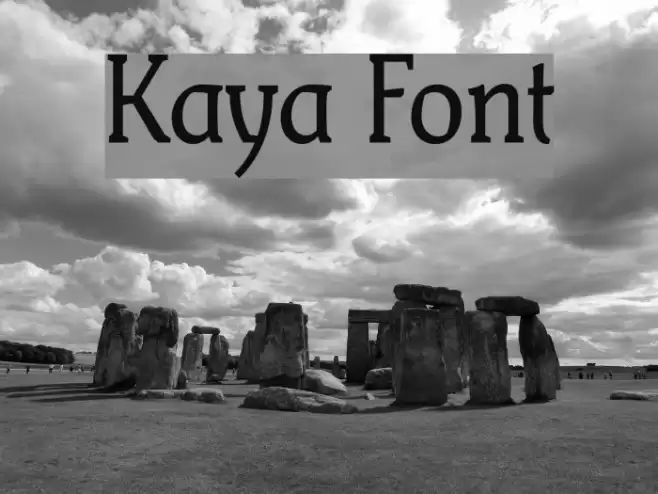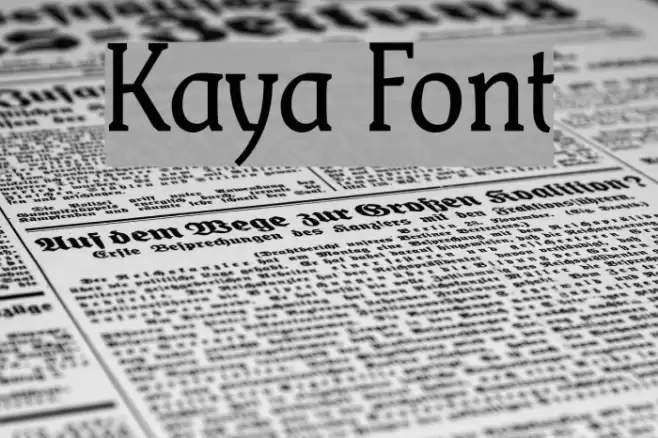
Kaya Font
Kaya Description
This font features a unique blend of classic and modern elements, characterized by its elegant and slightly whimsical serifs. The uppercase letters are bold and commanding, with a slight curvature that adds a touch of sophistication. The lowercase letters maintain a consistent style, offering a harmonious flow with their slightly narrow and elongated forms. The numerals are distinct and easily readable, with a playful twist that complements the overall aesthetic. Special characters are thoughtfully designed, maintaining the font's cohesive style. This font is versatile, suitable for both formal and creative projects.
A sophisticated serif font with a playful twist, ideal for versatile applications from Uncategorized fonts.
- Proposed Projects: Ideal for branding, editorial design, invitations, and packaging where a touch of elegance is desired.
- Overall Style: Classic